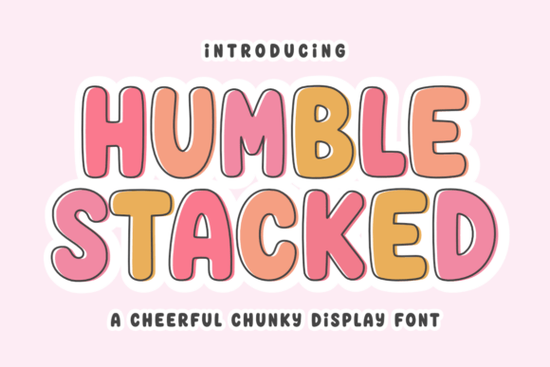
Looking for a font that balances charm with a bit of attitude? The Humble Stacked Font is perfect if you want something that feels friendly but can deliver a sharp message. Whether you're designing for an Etsy shop, creating digital downloads, or working on custom print projects, this font offers a unique blend of sweetness and sass. Its rounded, bubbly style makes it ideal for anything from cheeky t-shirt designs to ironic stationery.
The Humble Stacked Font is especially useful for creators who want to add a touch of personality to their work without being too direct. It’s great for crafting messages that are both cute and a little bit cutting. If you’re into creating content that has a hidden edge, this font could be a valuable addition to your design toolkit.
When it comes to versatility, the Humble Stacked Font shines in multiple formats. It works well for SVG quotes, sublimation shirts, and even Cricut projects. Its bold, chunky look makes it stand out in any design, whether it's for a digital download or a physical product. You can use it to create eye-catching wall art, mugs with backhanded compliments, or anything that needs a little bit of flair.
What Makes Humble Stacked Stand Out?
The Humble Stacked Font isn’t just about looks it’s about tone. The design gives off a cheerful vibe, but it can also carry a subtle bite when needed. This makes it a go-to choice for those who want to express themselves without being too obvious. Its combination of soft curves and strong shapes creates a visual contrast that adds depth to any project.
Best Uses for Humble Stacked Font
Here are some popular ways to use the Humble Stacked Font:
- Sarcastic SVG quotes – Add a twist to your digital art with clever, sassy messages.
- Cheeky sublimation shirts – Create t-shirts that are both stylish and full of personality.
- Backhanded compliment mugs – Design coffee mugs that make people smile while saying something a little bit mean.
- Ironic stationery – Use it for greeting cards, notebooks, or other paper products with a twist.
- Bold Cricut projects – Perfect for vinyl cutouts that need a strong visual presence.
This font is also great for “wholesome” wall art that has a hidden edge. It’s a versatile option that can fit into many different creative spaces.
How to Get the Most Out of Your Designs
To make the most of the Humble Stacked Font, consider pairing it with other fonts that complement its style. For example, using it alongside a more traditional typeface can help balance the design while keeping the focus on the message. You can also experiment with color and layout to enhance the overall impact of your work.
If you're new to using this font, start with simple projects and gradually move to more complex ones. This will help you understand how it performs in different contexts. You can also look at examples from other designers to get inspiration for your own work.
Whether you're a designer, crafter, or small business owner, the Humble Stacked Font offers a fresh way to express yourself through typography. Its unique blend of charm and wit makes it a valuable tool for anyone looking to add personality to their work.
Tip: Always test your font in different sizes and backgrounds to ensure it looks good in all situations. This helps maintain readability and visual appeal across various platforms.